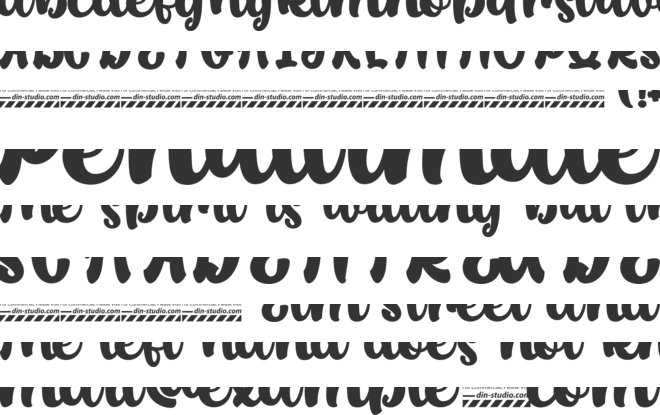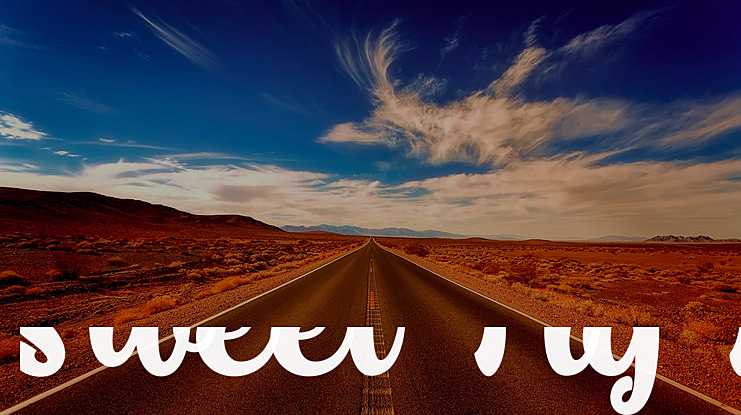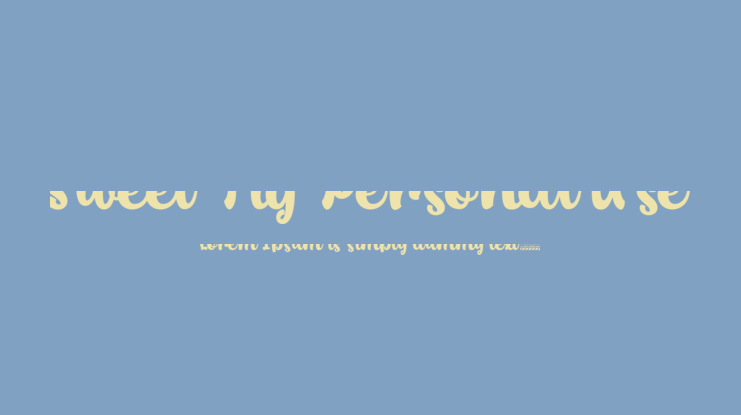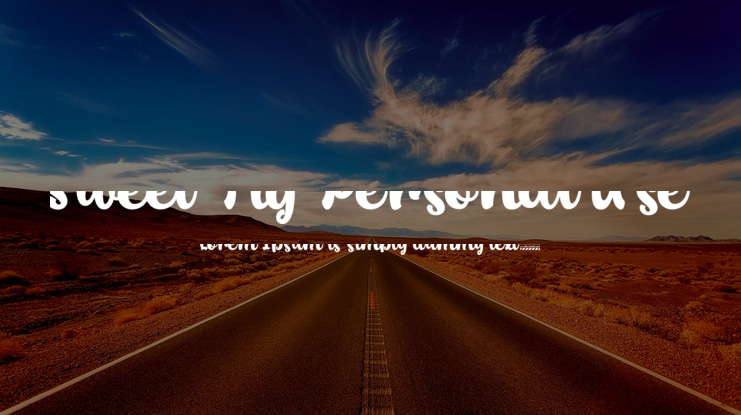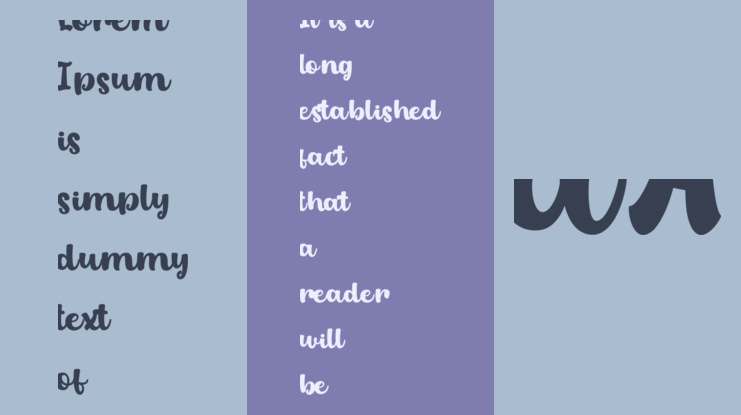
Sweet Fig is a bold script. This font is suitable for any design like branding especially for food packaging, quotes, printing, etc.The design can elevate your design project.